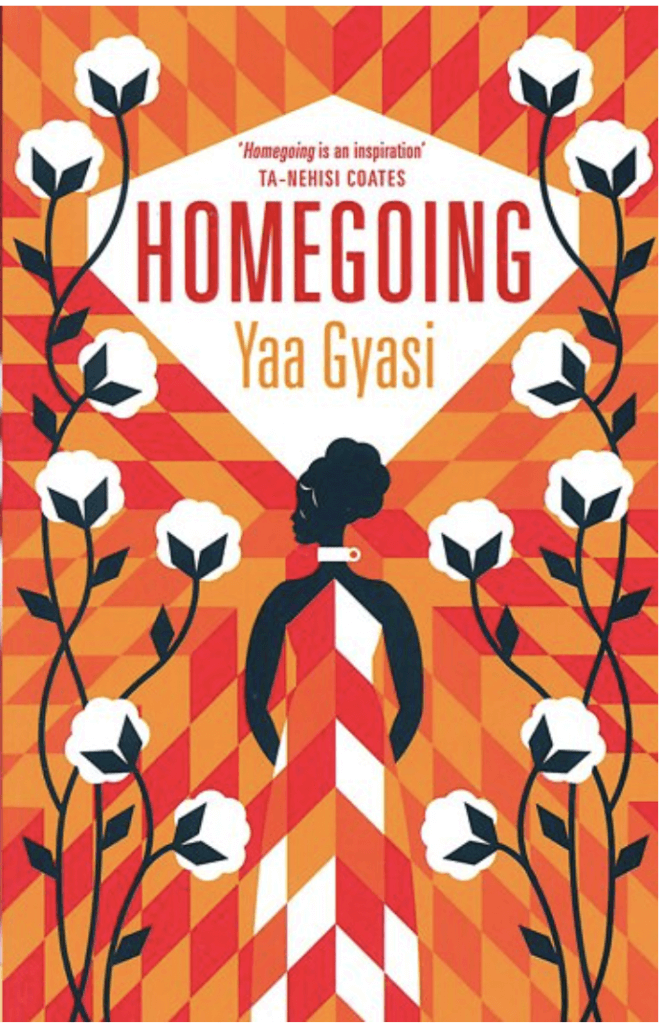
Design ideas & design process
For this task I created a social media banner to accompany a podcast for ‘Homegoing’ by Yaa Gyasi. This illustration was one that is inspired by the book cover.
I took inspiration from the flowers going up each side of the cover. They looked like simple enough shapes to recreate and an integral part of the design which would create a good link between my social banner design and the book cover. I used the pencil tool to draw the stem and then used the circular tool to create a smooth circle. I then added many smaller circles around the edge and merged the shapes together. This allowed me to create the cloud-like effect of the flowers. For the petals I again used the pencil tool to draw the outline and duplicated the shape for multiple petals. Once I had 1-2 different flowers I just duplicated them to give me multiple flowers across the front of the banner.
I then moved onto the background. I wanted to use the same colours as the book cover to keep them closely related but I used different shapes. I decided to use a series of wave-like shapes to create a background that was completely original.
After creating the background I added ‘Homegoing’ in the font Futura. I picked this font as it resembled the one used on the book cover but instead of red I chose black to keep it from blending into the background. This font is thick and heavy which makes the text stand out.
The task provided me with software tutorials I was able to use and watch prior to starting this task. The first tutorial I watched taught me about using the pencil tool to draw shapes and adjusting the smoothness setting to prevent getting rough lines. This is what allowed me to draw the stems of the flowers I used above. The tutorial also showed how you can edit paths you made by using the pen tool to allow you to achieve the exact shape.
The second tutorial went more in-depth about the pencil tool and shortcuts to draw straight lines. It then talked about the curvature tool where you can set anchor points a long a straight line and make it curved.
Another tutorial allowed me to learn about creating shapes and combining many smaller shapes to create a more detailed shape. This is the technique I used to create the ‘petals’ of the flowers above.
I also found some other resources online that went through creating, combining and cutting shapes to achieve the final shape I wanted. This was the main skill I needed for this task as this allowed me to create the main focus point of the banner, the flowers. It is also the skill I used to create the different coloured waves for my background.